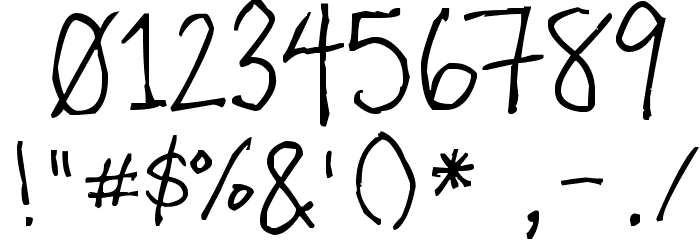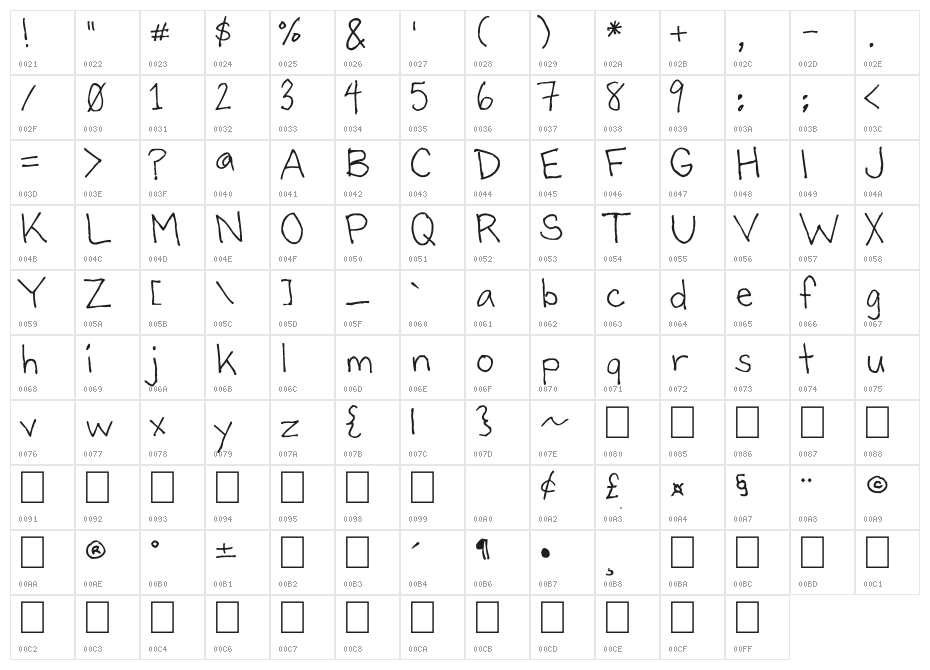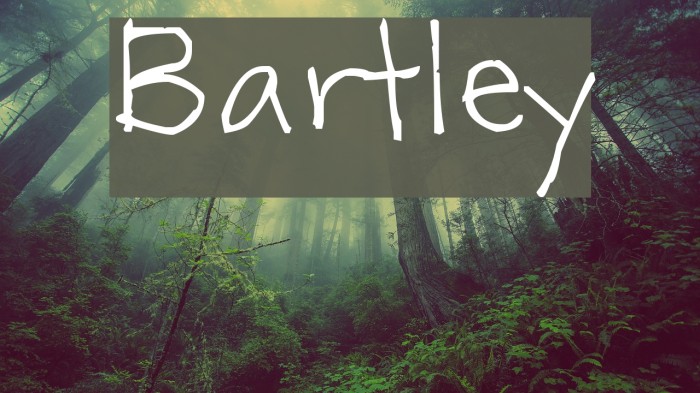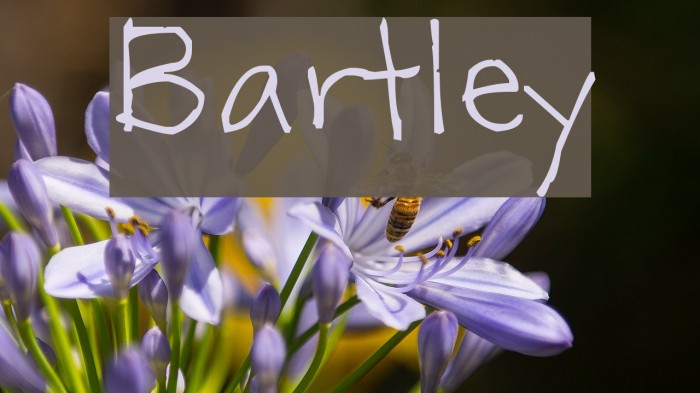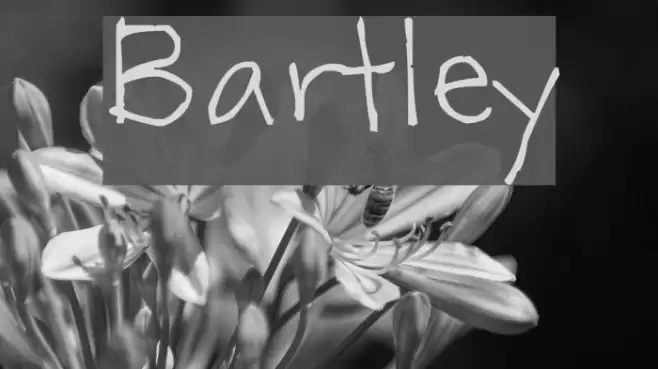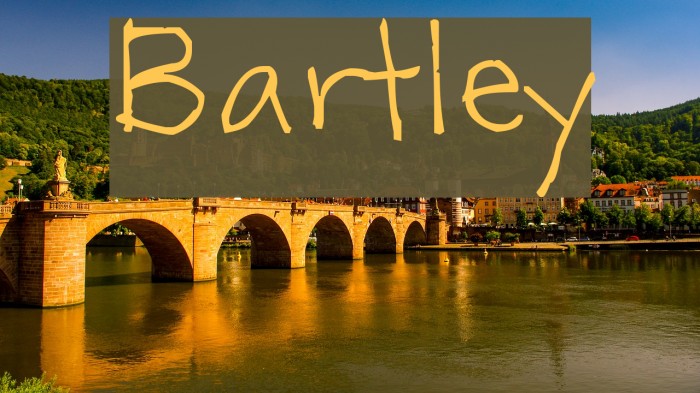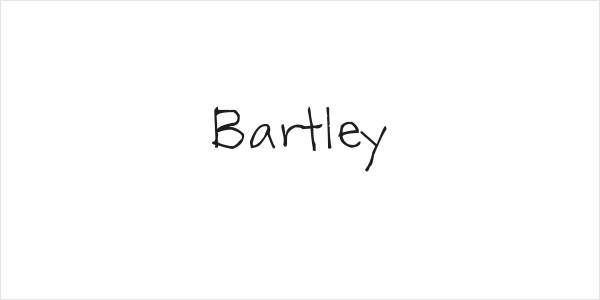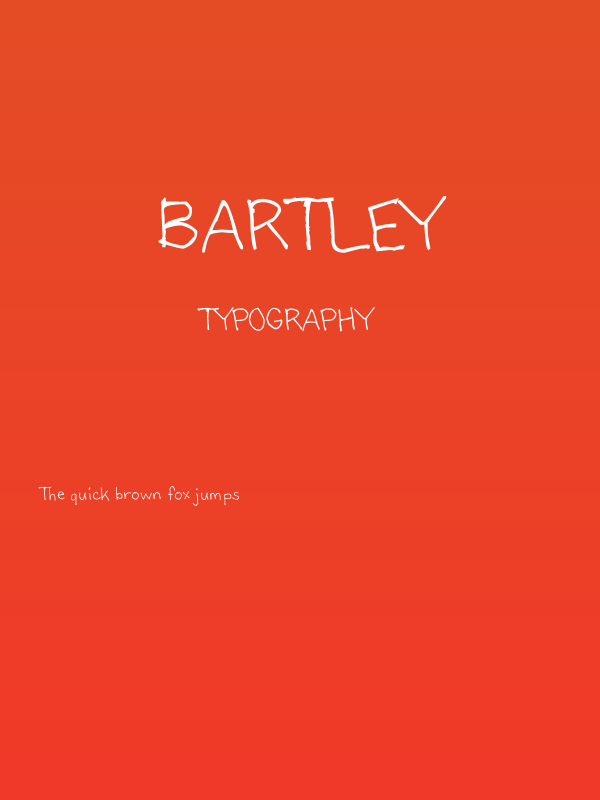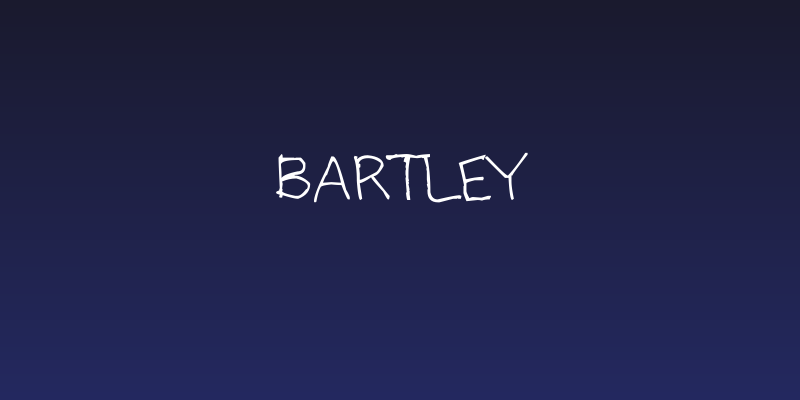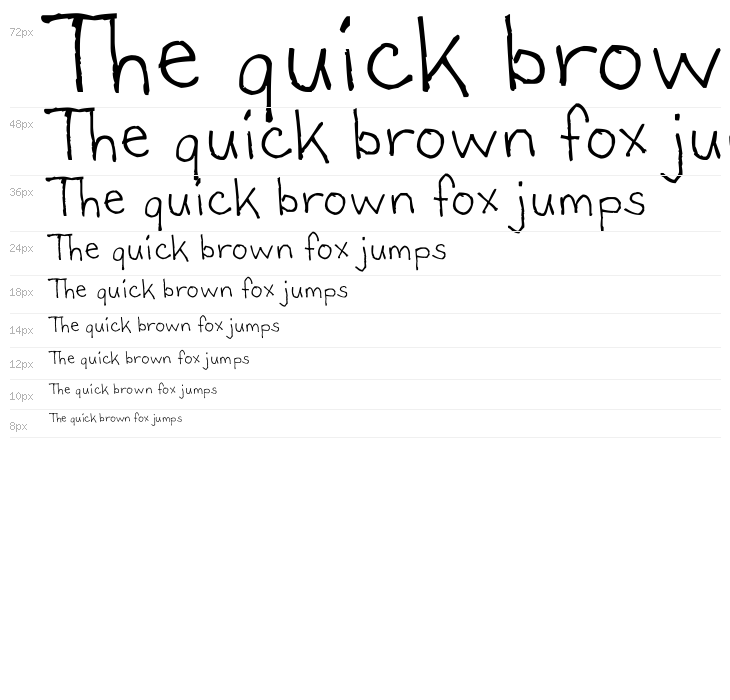
Bartley Font
Bartley Description
This font features a playful, handwritten style with a casual and informal appearance. The characters are unevenly weighted, giving them a dynamic and lively feel. The strokes are slightly irregular, mimicking the natural flow of handwriting. This adds a personal touch, making it suitable for projects that require a human element. The uppercase and lowercase letters maintain a consistent style, with rounded edges and a slightly tilted orientation. The numbers and special characters follow the same aesthetic, ensuring uniformity across all glyphs.
| Use Case | Creative projects, informal communications, personal branding. |
| Proposed Projects | Ideal for greeting cards, children's books, personal blogs, and creative branding projects. |